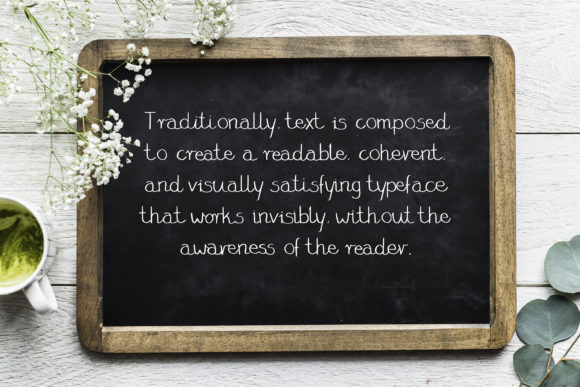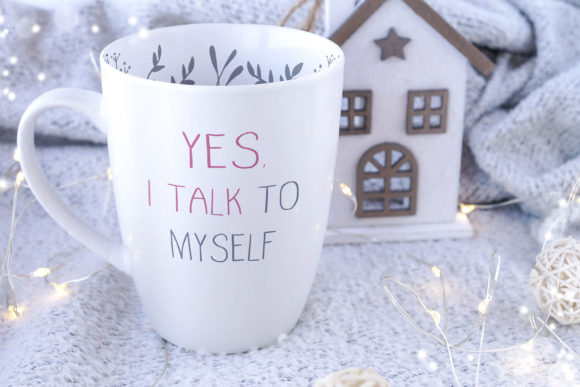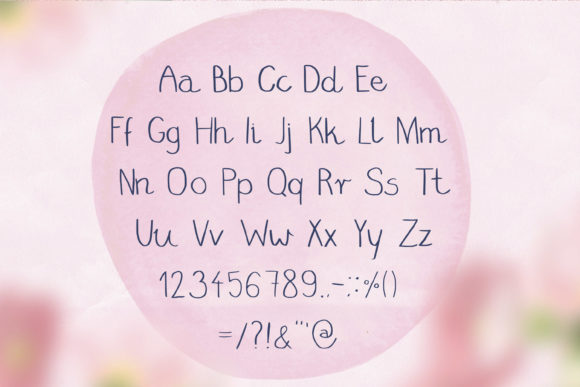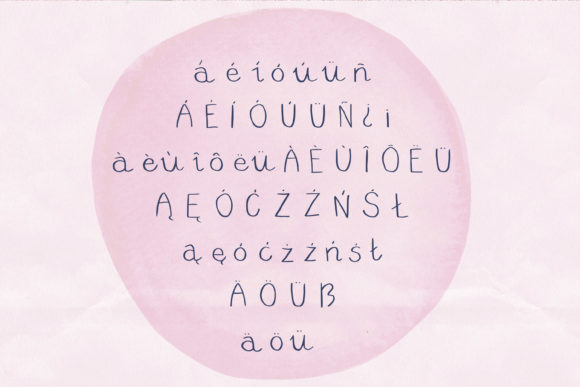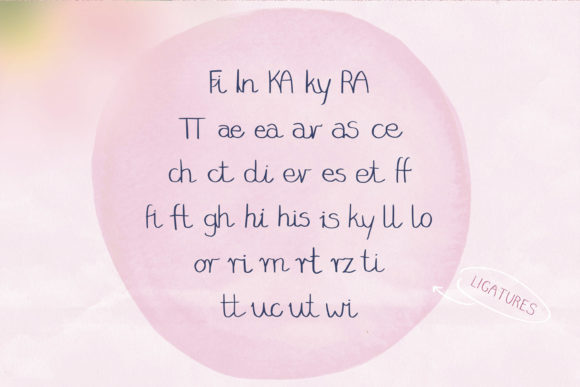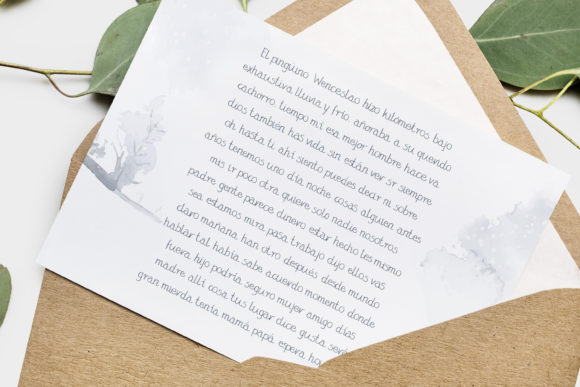
Fugly Giligeli Font: Unleash Your Creativity with this Quirky Handwritten Font
In the world of typography, fonts play a crucial role in bringing creative ideas to life. Among the numerous fonts available, Fugly Giligeli has gained significant attention for its unique blend of fun, quirkiness, and authenticity. This enchanting handwritten font has the power to transform any design into a standout masterpiece. In this article, we’ll dive into the world of Fugly Giligeli, exploring its features, benefits, and uses, making it a must-have for designers and crafters.
The Story Behind Fugly Giligeli
Fugly Giligeli is more than just a font; it’s an expression of creativity and individuality. Its name itself suggests a sense of playfulness and humor, which is reflected in its design. The font’s creator aimed to craft a typeface that would break the mold of traditional typography, offering a fresh and exciting alternative for designers and crafters. With Fugly Giligeli, you can add a touch of personality to your projects, making them more engaging and memorable.
Key Features of Fugly Giligeli
So, what makes Fugly Giligeli so special? Here are some of its key features:
- Handwritten style: Fugly Giligeli boasts a beautiful, handwritten style that exudes warmth and friendliness.
- Quirky and playful: The font’s quirky and playful nature makes it perfect for projects that require a touch of whimsy.
- Authentic feel: Fugly Giligeli has an authentic feel that sets it apart from more traditional fonts.
- Highly legible: Despite its unique style, Fugly Giligeli remains highly legible, making it suitable for a wide range of applications.
Benefits of Using Fugly Giligeli
Using Fugly Giligeli in your designs can bring numerous benefits, including:
- Unique branding: With Fugly Giligeli, you can create a distinctive brand identity that sets you apart from others.
- Emotional connection: The font’s playful and quirky nature helps create an emotional connection with your audience.
- Versatility: Fugly Giligeli can be used in a variety of projects, from digital designs to print materials.
- Ease of use: The font is easy to use and pairs well with other fonts, making it a great addition to your typography arsenal.
Fugly Giligeli is a perfect fit for designers and crafters looking to add a touch of personality to their projects. Whether you’re working on:
- Digital designs: Use Fugly Giligeli in your social media graphics, blog posts, and website designs.
- Print materials: Add a touch of whimsy to your brochures, flyers, and business cards.
- Crafting projects: Use Fugly Giligeli in your handmade cards, scrapbooking, and other paper crafts.
Tips for Using Fugly Giligeli
To get the most out of Fugly Giligeli, here are some tips to keep in mind:
- Experiment with colors: Fugly Giligeli looks great in a variety of colors, so don’t be afraid to experiment.
- Pair with other fonts: Try pairing Fugly Giligeli with other fonts to create a unique typography combination.
- Use it sparingly: While Fugly Giligeli is a beautiful font, using it sparingly can make it more effective.
| Font Name | Fugly Giligeli Font |
| Author | DIGI Potwor |
Fugly Giligeli is a one-of-a-kind font that embodies fun, quirkiness, and authenticity. With its unique handwritten style, this enchanting font has the power to transform any creative idea into a true standout. Whether you’re a designer or crafter, Fugly Giligeli is a must-have in your typography arsenal. So, why not give it a try and see how it can elevate your designs to the next level?